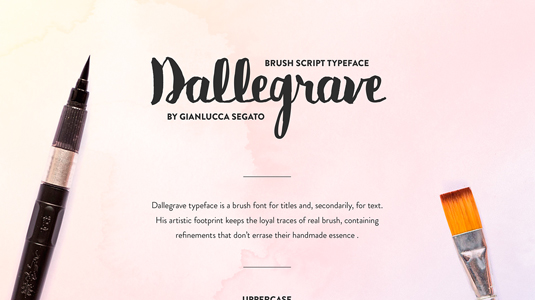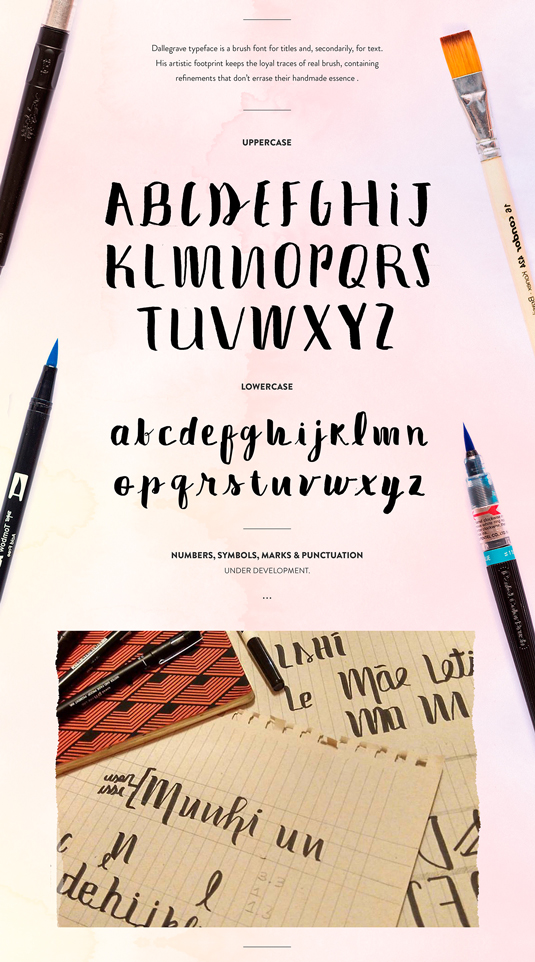
Font of the day: Dallegrave
Dallegrave by Gianlucca Segato
Kicking our font of the day posts off this festive week is brush typeface Dallegrave, by art director Gianlucca Segato. "Dallegrave is for primarily for titles and text," he comments on Behance. "It's artistic footprint keeps the loyal traces of real brush, containing refinements that doesn't erase the handmade essence."